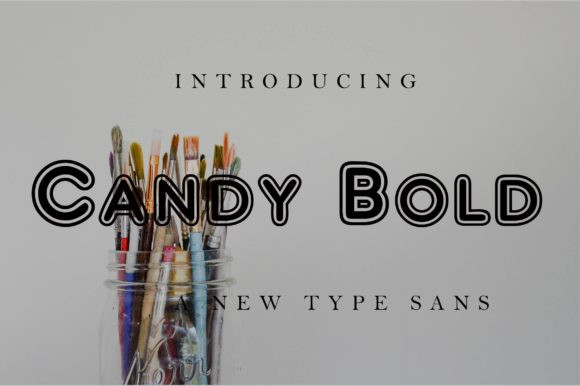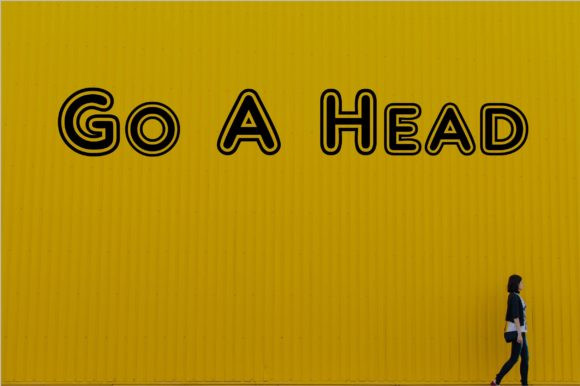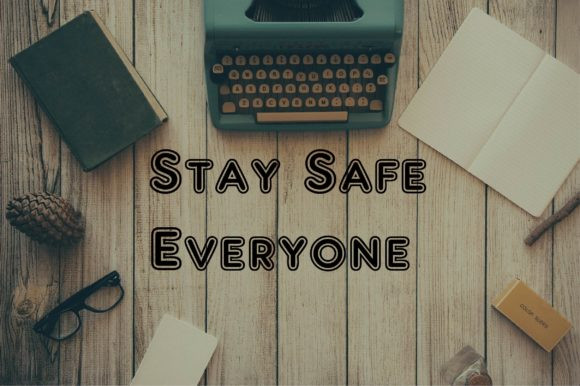
Candy Bold Font
Candy Bold is a cute display font, carefully handcrafted to become a true favorite. Its casual charm makes it appear wonderfully down-to-earth, readable and, ultimately, incredibly versatile. Candy Bold will look outstanding in any context, whether it’s being used on busy backgrounds or as a standalone headline!